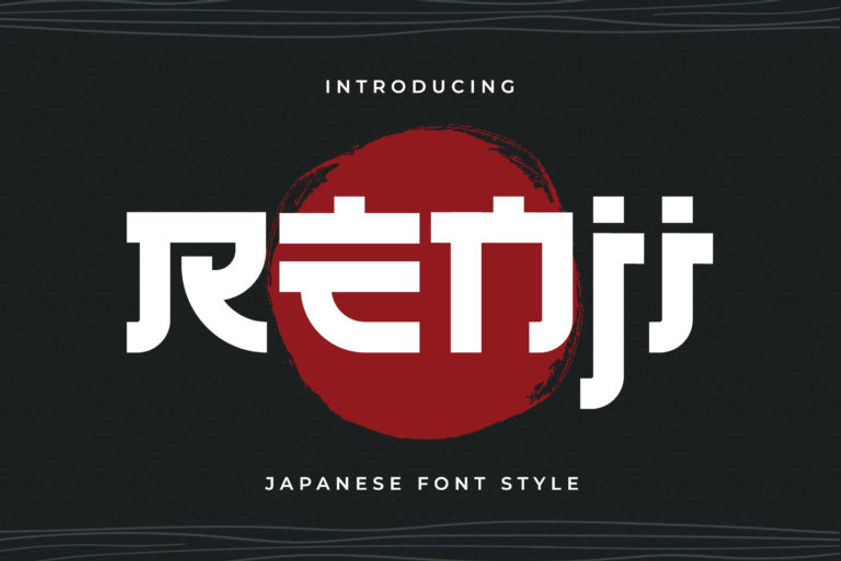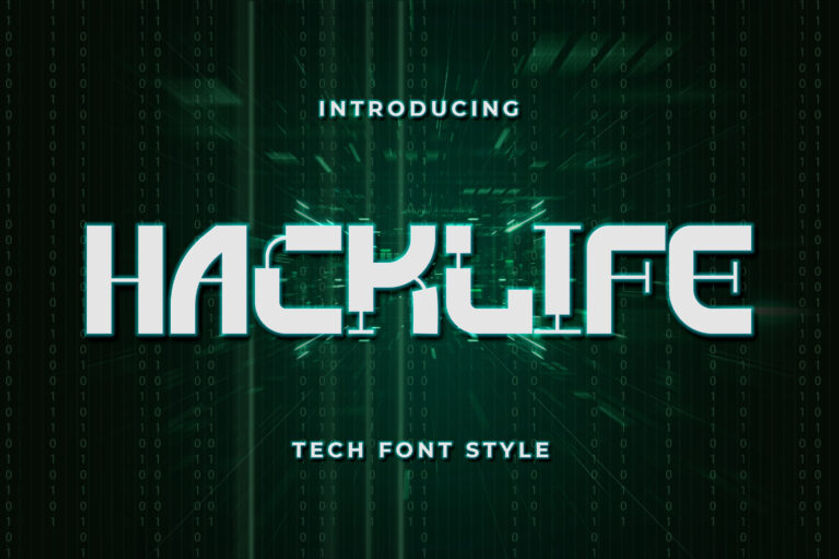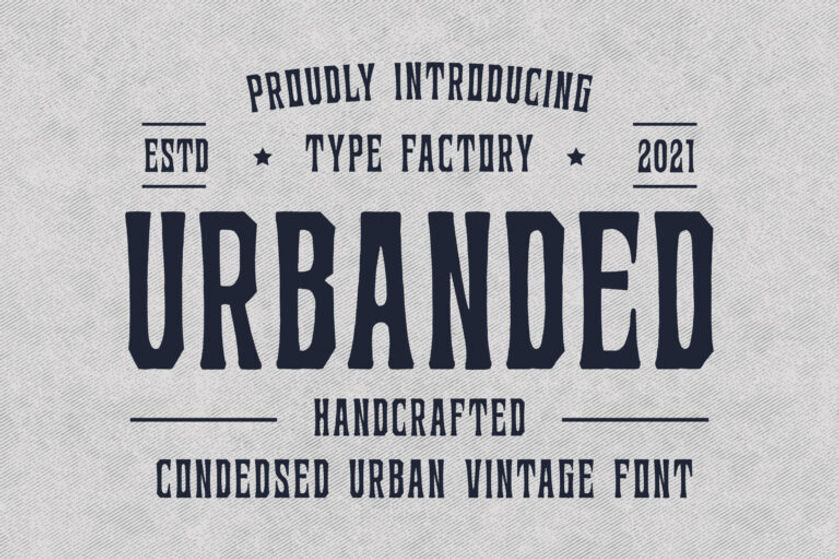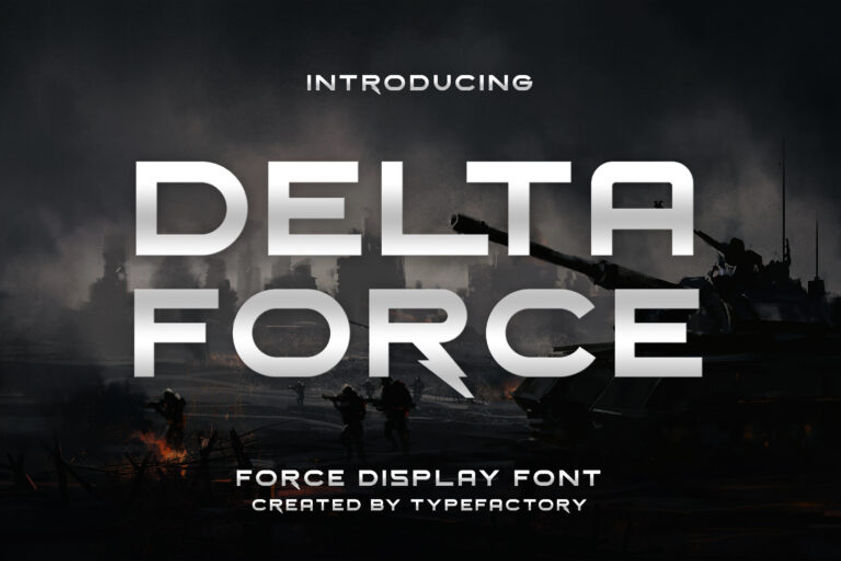
The Top 10 Best Premium and Free Fonts for Gaming & E-sport Logos
Fonts are an essential part of any design. They can help a logo, or a brand image stand out, and they play a massive role in the most popular gaming titles. Since it’s one of the first elements that your gamers will see, choosing the right font is essential for the success of your gaming and e-sport logos. In this article, we’ll share the top 10 premium and free fonts that you can use for your next logo or project.
Urbanded
Urbanded is the perfect font for any project that needs a down-to-earth vibe. Urbanded is a handcrafted font that will make your designs look like they came straight out of the past while still offering an exotic feel to any game. It’s casual, charming, and incredibly versatile. You can use it in any context to create an outstanding design.
Delta Force
If you’re looking to create a stunning and stylish army or military-themed logo, Delta Force is a perfect choice. It’s bold and mature while still displaying authenticity and thoughtfulness. So whether you’re working on an action-based, mature, or adventurous game, you’ll want to consider using this powerful font for your logo design.
Hacklife
Futuristic Font for Movie, Games, Cover, Poster
Hacklife is a unique font that can add tech-inspired flair to all of your designs. This bold and distressed font works well in gaming logo designs that require edge, mystery, or a futuristic style. When you want to find an innovative way to create a logo design that stands out from the rest, you’ll want to consider a font like Hacklife for your next gaming project.
Destro
Destro – Stencil Display Font
Destro is the perfect font to add some personality and style to your designs. It’s intricate, strong, and delicate all at once. This unique stencil-style font is effortless and works with both professional and straightforward logo design ideas. Destro can ensure that all of your professional games and projects make a statement while effortlessly standing out from the competition.
Last Mission
Last Mission has the best mix of both futuristic and retro styles, perfect for any space adventures, sci-fi themes, or action-related gaming concepts. In addition, this straightforward design offers modern and classic features that make your logo look like it came straight out of your player’s dreams!
Renji
Renji is a simple, Japanese-inspired style typeface. If your logo requires a vintage front style that combines both tradition and class simultaneously, you’ll want to consider using Renji. This freestyle and smooth font are perfect to use in any elevated game design, whether you’re working on a free-to-play game or a premium eSport.
CyberSky
If you’re looking for the ultimate futuristic font, CyberSky is the perfect font for you. It’s clean, high-tech, and a great choice to make your logo stand out from others in this competitive gaming industry, especially if you’re looking to display a sci-fi theme, night street racing, or space adventure. Regardless of your game or e-sport logo design idea, CyberSky will help take your designs to the next level.
Voltec
Voltec is the perfect font for your next project. It’s striking, sharp, and futuristic – everything you need to make an impact with your design! This versatile typeface can be used in almost any situation, whether you’re creating a space adventure or running with a sci-fi theme. Regardless, your logo will display a combination of angular, sharp, and compact style, which will help create a robust logo design.
Exton
Exton is a futuristic font that can add a modern twist to your gaming logo design. Its clean, striking, and straightforward style is perfect for any free-to-play game or premium eSport that requires an edgy feel! Whether you need something futuristic or classic, Exton’s sleek font offers the best balance of styles that will easily make your next project stand out from the rest.
Runboy
If you’re looking for the perfect strong font for your next project, you’ll need to use Runboy. It’s strong, beautiful, and easy to read, perfect for any free-to-play game or premium eSport that’s looking to make a statement. This bold font is sure to give your gaming logo design the power and strength it needs to shine.